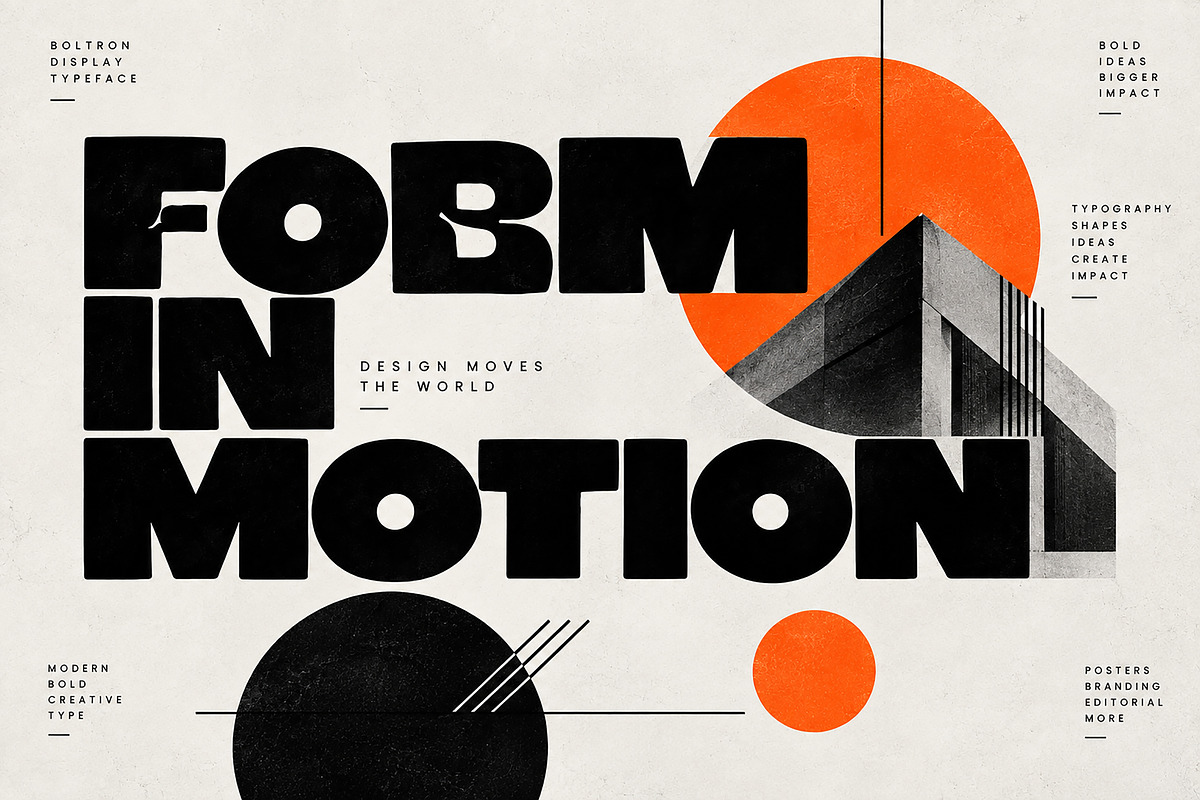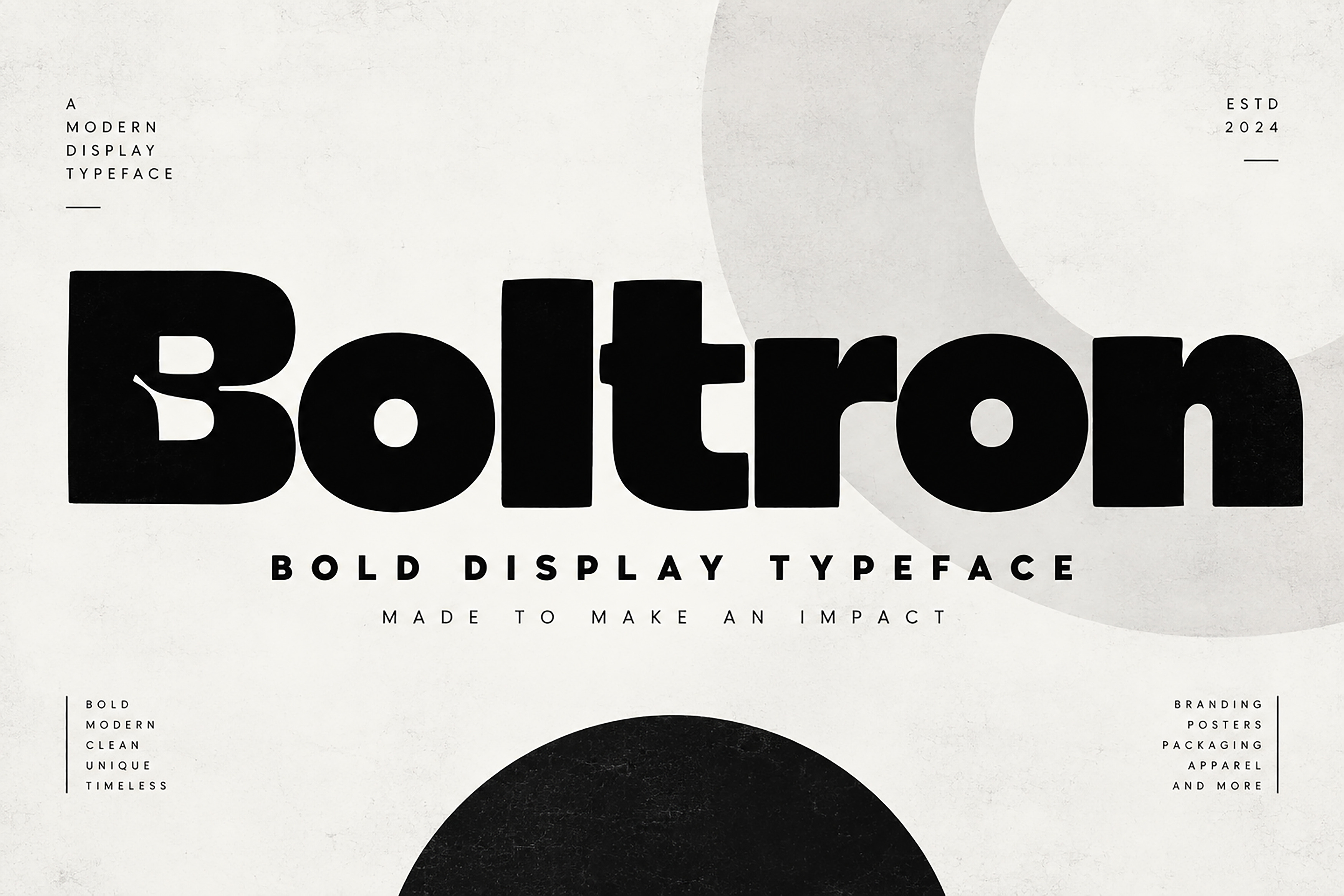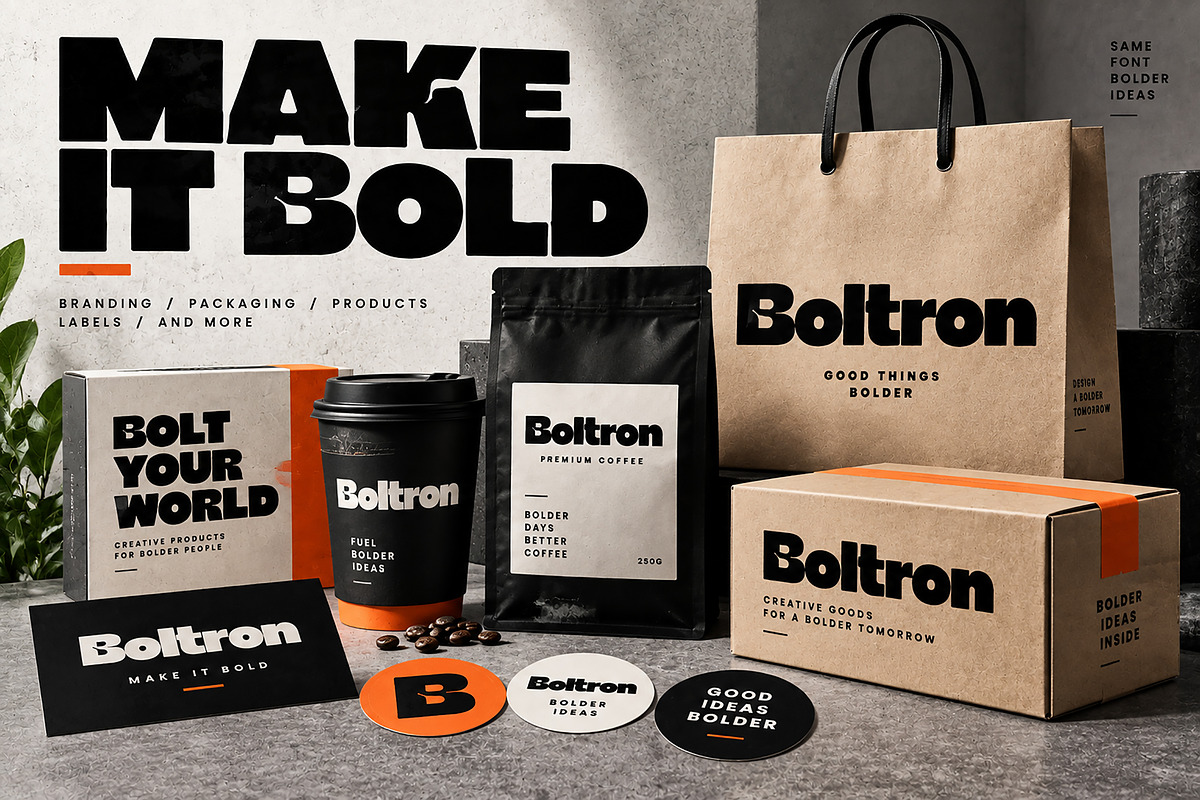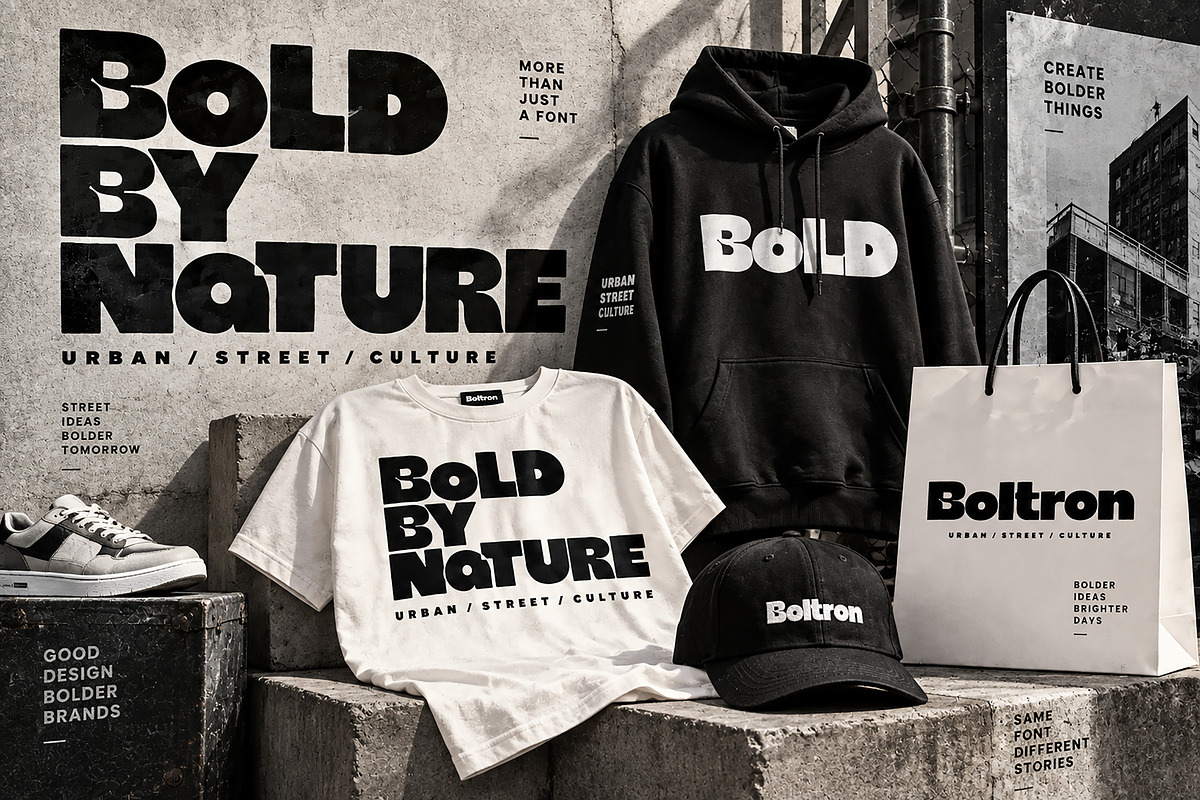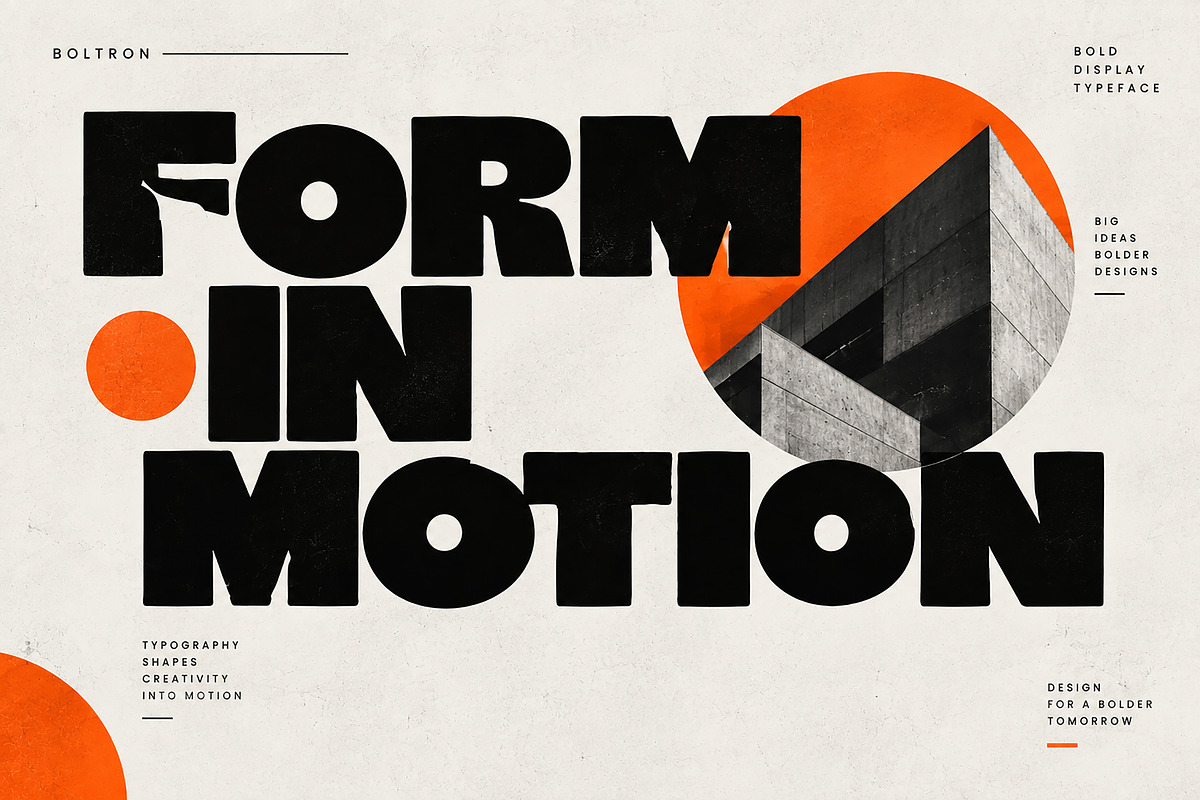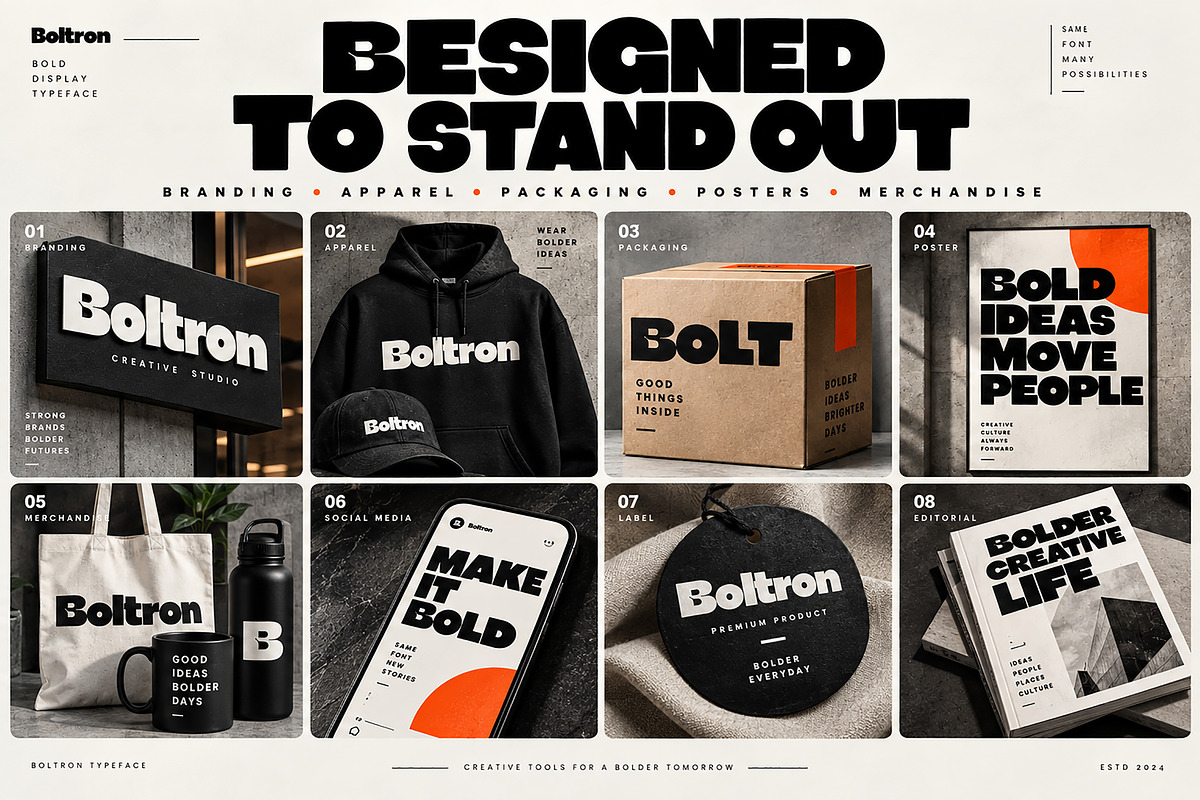
Boltron — Bold Display Typeface
Boltron — Bold Modern Display Typeface
Make your designs impossible to ignore with Boltron, a bold and expressive display typeface designed for high-impact typography and modern creative projects.
Featuring a heavy, chunky letterform with distinctive geometric shapes and a playful contemporary personality, Boltron brings instant visual strength to headlines, logos, posters, packaging, apparel, and branding projects.
Its strong silhouette works especially well at large sizes, making it an excellent choice for designers who want typography that feels confident, energetic, modern, and memorable.
Logo & Brand Identity
Streetwear & Apparel Design
T-Shirt & Hoodie Graphics
Posters & Advertising
Product Branding
Labels & Stickers
Album & Music Artwork
Editorial Design
Headlines & Display Typography
Creative Campaigns
Signage & Promotional Graphics
Bold Display Typeface
Heavy & Chunky Letterforms
Distinctive Modern Character
Strong Visual Presence
Excellent for Large Typography
Versatile Commercial Design Applications
Perfect for Branding & Headlines
Boltron is made for bold ideas, powerful visuals, and designs that demand attention.